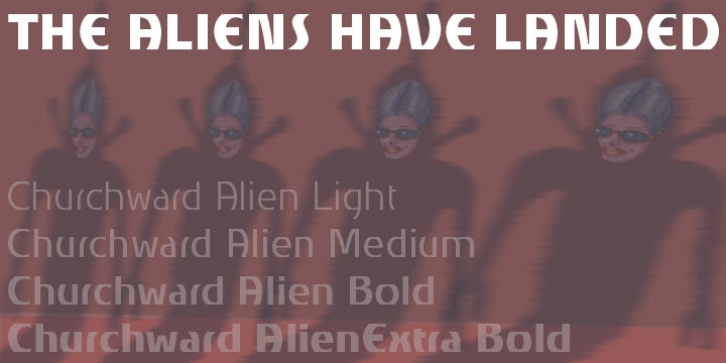
Churchward Alien was designed by Joseph Churchward and published by BluHead Studio. Churchward Alien contains 4 styles and family package options.
Churchward Alien is the latest OpenType font family released by BluHead Studio, LLC. from the exciting and unique typeface library of Joseph Churchward. The quirky chopped-top motif gives this four weight family a unique presence suitable for display work, but the lighter weights work equally well for short text runs.
Churchward Alien Light·
Churchward Alien Medium·
Churchward Alien Bold·